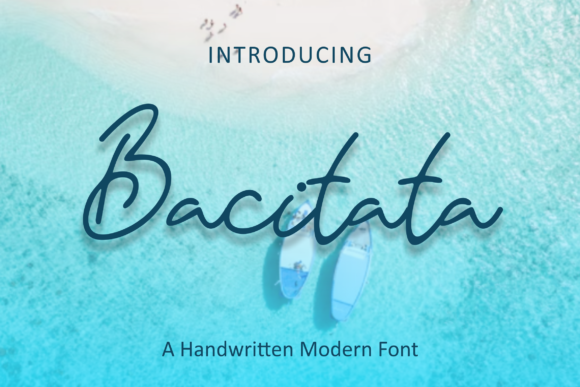
Bacitata Font: Elevate Your Designs with Delicate Elegance
In the world of typography, a font can make or break a design. For designers and crafters seeking to add a touch of elegance and sophistication to their projects, the Bacitata Font is an exceptional choice. This delicate and fashionable script font is perfect for a wide range of applications, from logos and t-shirt printing to creative products and more.
The Beauty of Bacitata Font
Bacitata Font boasts a unique, flowing script style that exudes refinement and poise. Its delicate strokes and carefully crafted letterforms make it an ideal choice for designers looking to add a touch of luxury to their work. Whether you’re creating a logo, branding materials, or promotional products, Bacitata Font is sure to make a lasting impression.
One of the standout features of Bacitata Font is its versatility. This font can be used in a variety of contexts, from formal and professional settings to more casual and creative applications. Its elegant appearance makes it perfect for:
- Logos and branding materials: Create a lasting impression with a sophisticated logo that showcases your brand’s personality.
- T-shirt printing: Add a touch of style and elegance to your apparel designs with Bacitata Font.
- Creative products: Elevate your product designs, such as stationery, packaging, and more, with this beautiful script font.
- Digital media: Use Bacitata Font in your digital projects, including social media graphics, presentations, and website headers.
Why Choose Bacitata Font?
With so many fonts available, why choose Bacitata Font for your next project? Here are just a few reasons:
- Unique and eye-catching: Bacitata Font’s delicate and fashionable design makes it stand out from more traditional fonts.
- Highly versatile: This font can be used in a wide range of applications, from formal to casual.
- Elegant and sophisticated: Add a touch of luxury to your designs with Bacitata Font’s refined appearance.
- Easy to read: Despite its delicate nature, Bacitata Font is highly legible, making it perfect for body text and headlines.
Tips for Using Bacitata Font
To get the most out of Bacitata Font, here are a few tips to keep in mind:
- Pair with contrasting fonts: Combine Bacitata Font with a bold, contrasting font to create visual interest and hierarchy.
- Use for headlines and titles: Bacitata Font’s elegant appearance makes it perfect for headlines and titles, adding a touch of sophistication to your designs.
- Experiment with colors: Bacitata Font looks stunning in a range of colors, from metallic and pastel shades to bold and bright hues.
In conclusion, Bacitata Font is a beautiful and versatile script font that’s perfect for designers and crafters looking to add a touch of elegance to their projects. With its delicate and fashionable design, high legibility, and versatility, Bacitata Font is an excellent choice for a wide range of applications. Whether you’re creating logos, t-shirt designs, or creative products, Bacitata Font is sure to elevate your designs and make a lasting impression.